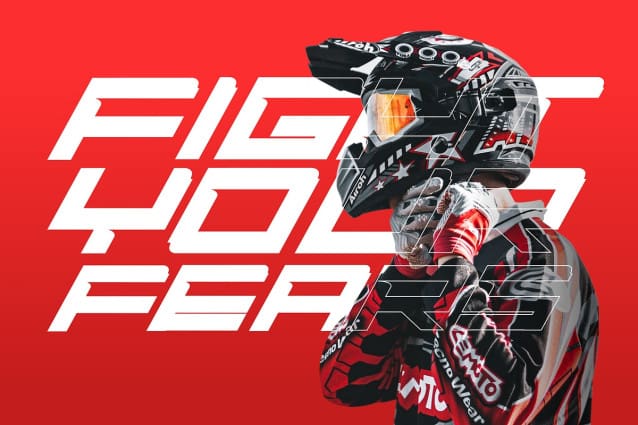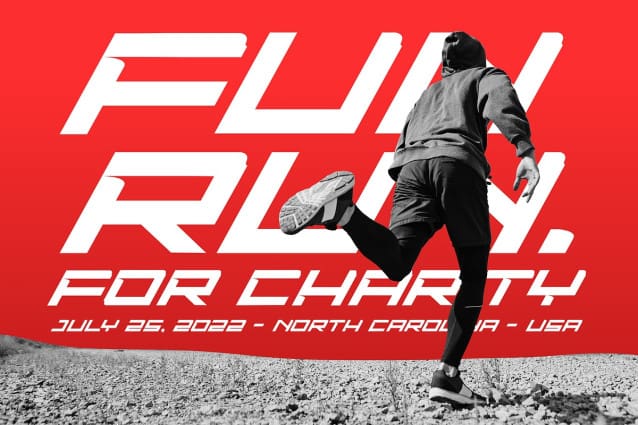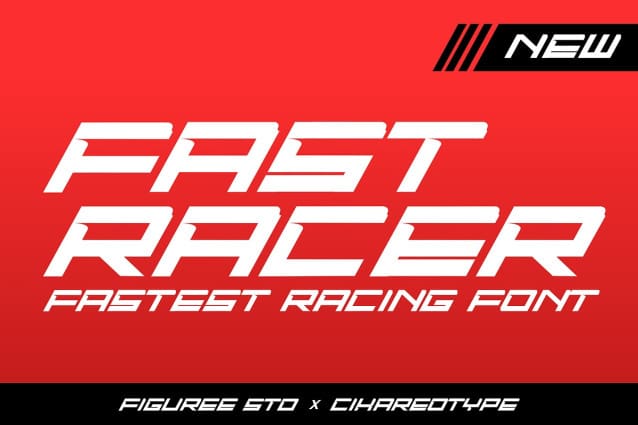
Fast Racer Font
Fast Racer Font is a sport display Font. The font is ready to be used for your racing sports or automotive related projects. Built to be perfect for headlines, jerseys, logos, branding, posters, packaging, advertising, and much more.